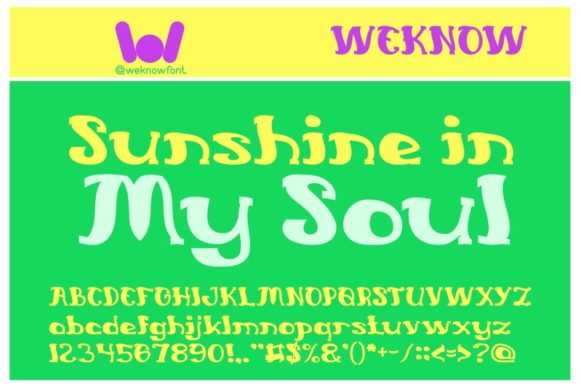
The Magical World of Everlasting Song Font
Have you ever been in the middle of a design project, and suddenly, you’re stuck on finding the perfect font? I certainly have! It was a few months ago when I was working on a whimsical branding project for a children’s book. My client wanted a font that would transport their readers to a magical world, but I was struggling to find the right fit. That’s when I stumbled upon the Everlasting Song font, and it completely transformed my design!
A Whimsical and Wavy Display Font
Everlasting Song is a modern and chic display font that boasts a whimsical and wavy style. Its unique design elements will undoubtedly immerse your designs into a magical world. Whether you’re a designer, crafter, or creative hobbyist, this font is sure to captivate your audience.
- ✨ Unique and eye-catching design
- ✅ Modern and chic style
- ⚡️ Highly versatile for various design projects
- 💫 Supports OpenType features and glyphs
While Everlasting Song is an amazing font, there are a few small quirks to consider:
- 🤔 Limited use for body text due to its display nature
- ⚠️ May require adjustments for optimal use in certain design platforms
Everlasting Song was designed with the intention of creating a font that would evoke a sense of magic and wonder. The designer aimed to craft a font that would be both modern and elegant, while also being playful and whimsical. The result is a font that is perfect for designs that require a touch of sophistication and enchantment.
| What type of designs is Everlasting Song best suited for? | Everlasting Song is ideal for designs that require a touch of whimsy and magic, such as children’s book titles, branding, and packaging. |
| Does Everlasting Song support OpenType features? | Yes, Everlasting Song supports OpenType features, including glyphs and stylistic alternates. |